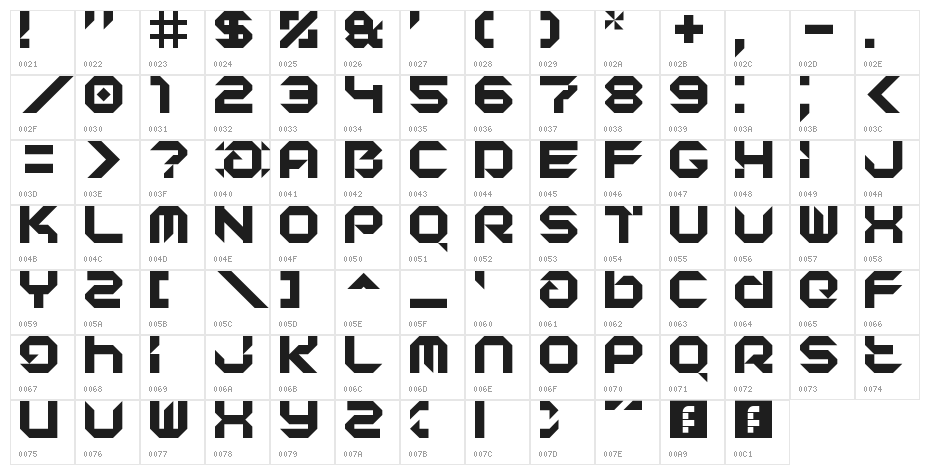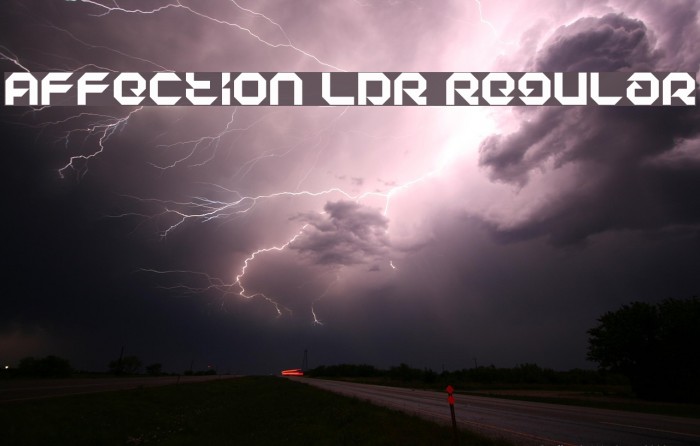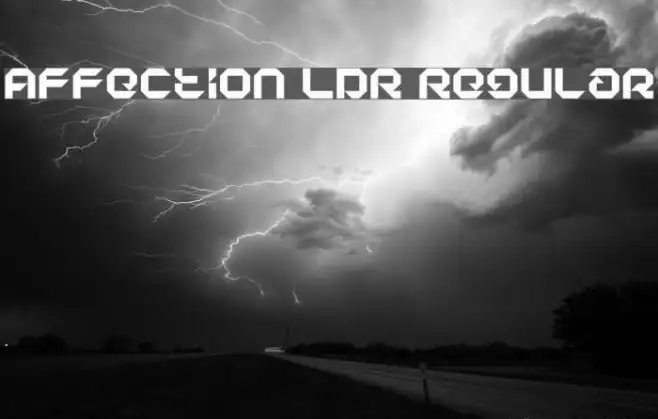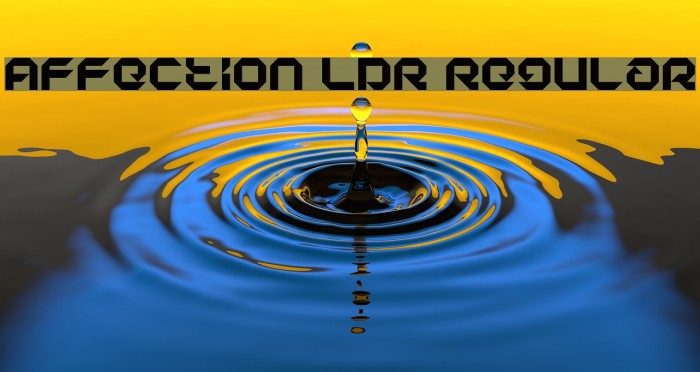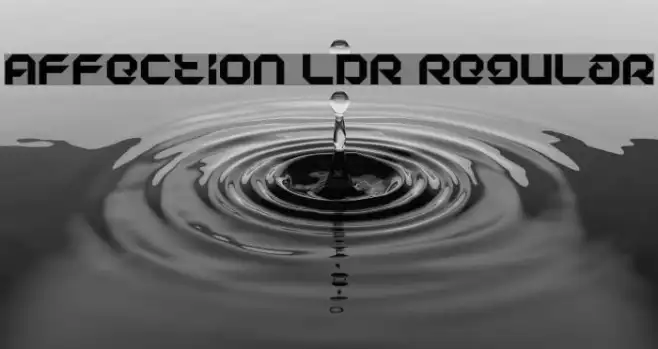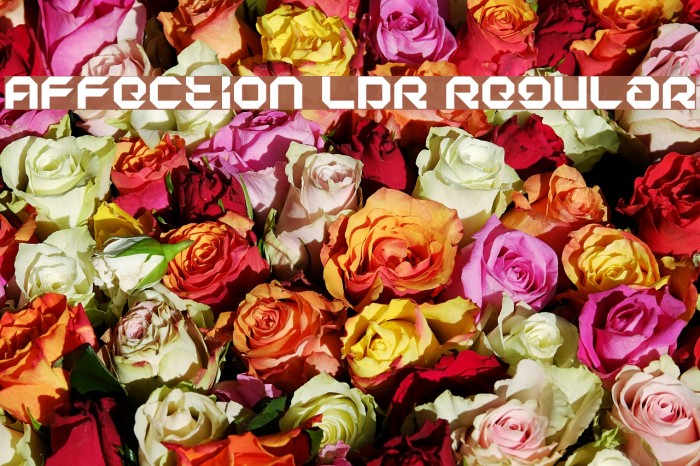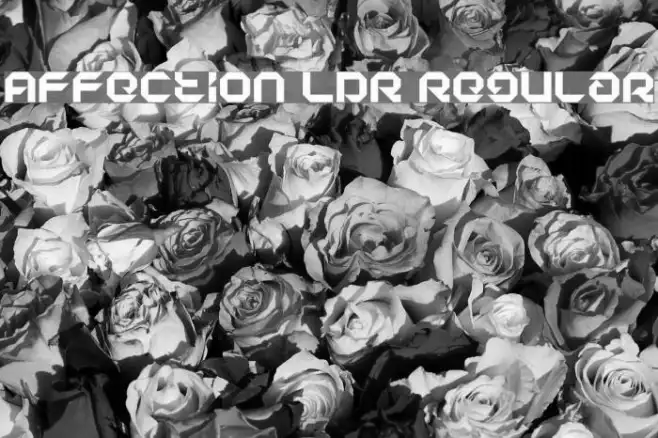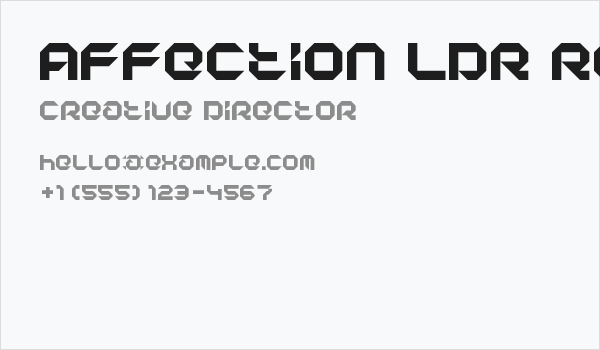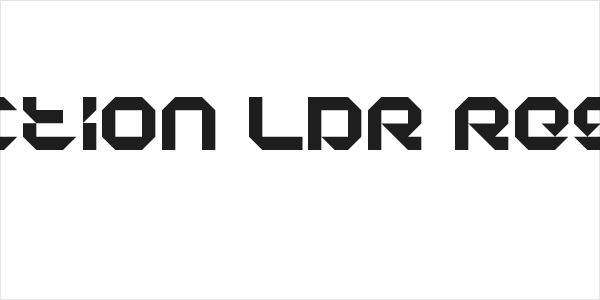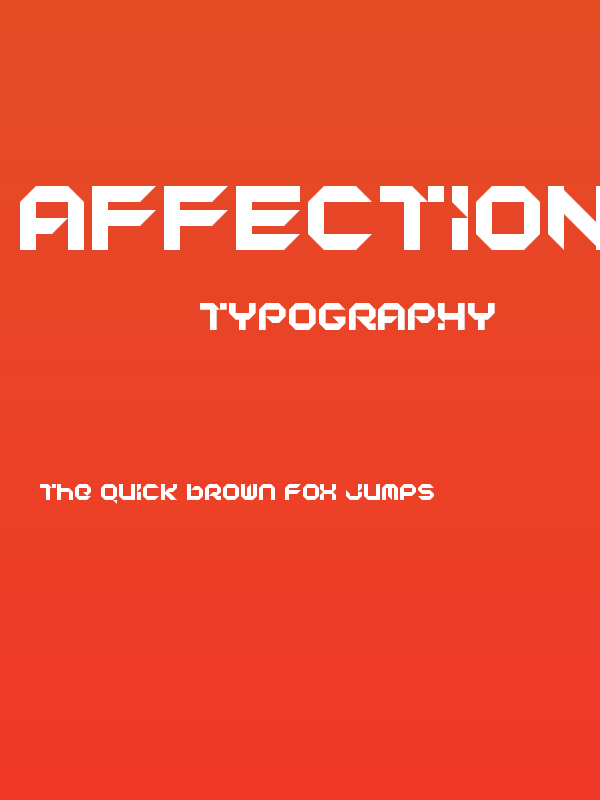
Affection LDR Regular Font
Affection LDR Regular Description
This font features a bold, geometric design with sharp angles and a futuristic aesthetic. The characters are constructed with a series of straight lines and angular cuts, giving it a distinct, edgy appearance. The uppercase and lowercase letters maintain a consistent style, with a uniform height and width that contributes to its modern look. The numbers and special characters follow the same design principles, ensuring a cohesive visual identity across all elements. This font's unique style makes it stand out, ideal for projects that require a strong, impactful presence.
| Proposed Projects | Ideal for technology branding, sci-fi themed designs, video game interfaces, and modern posters. |